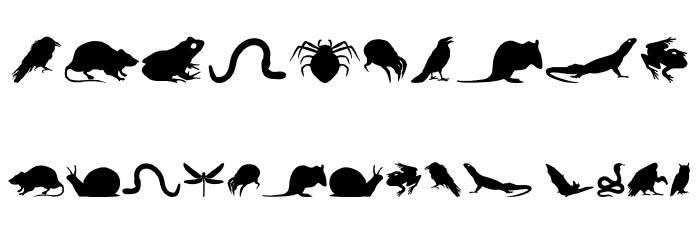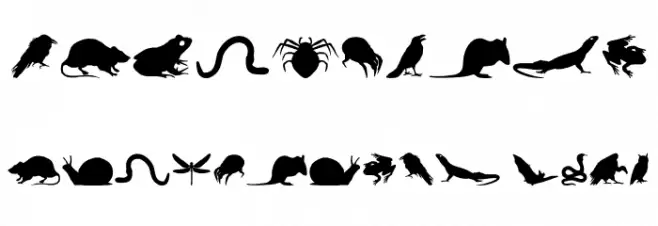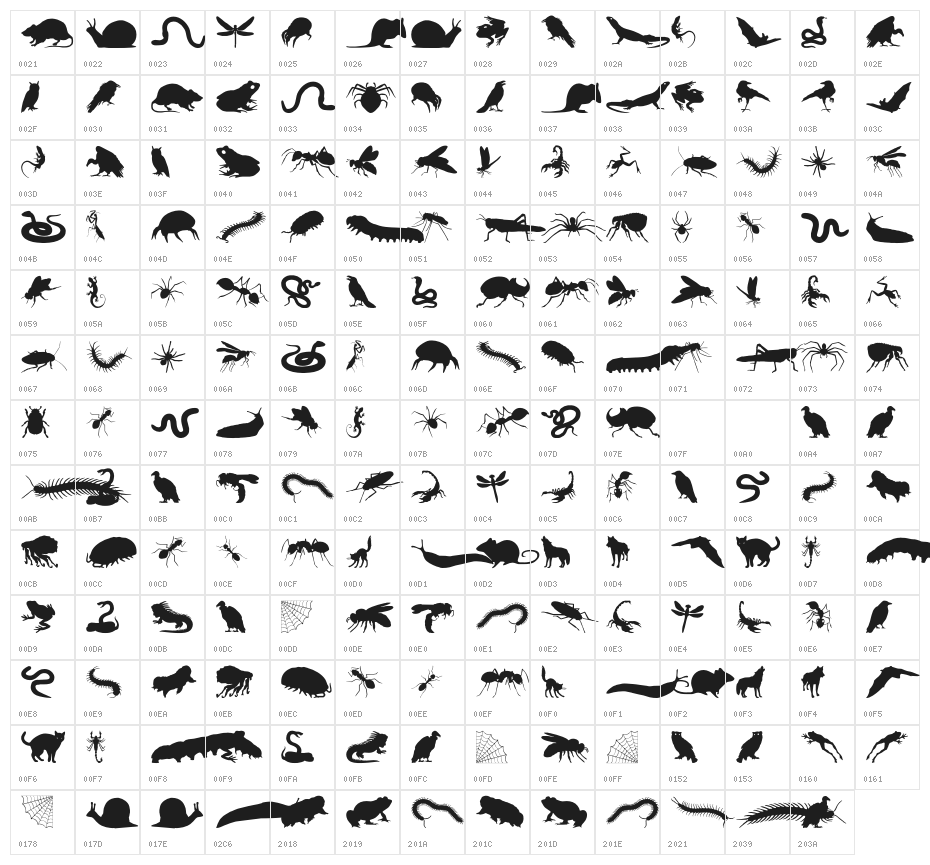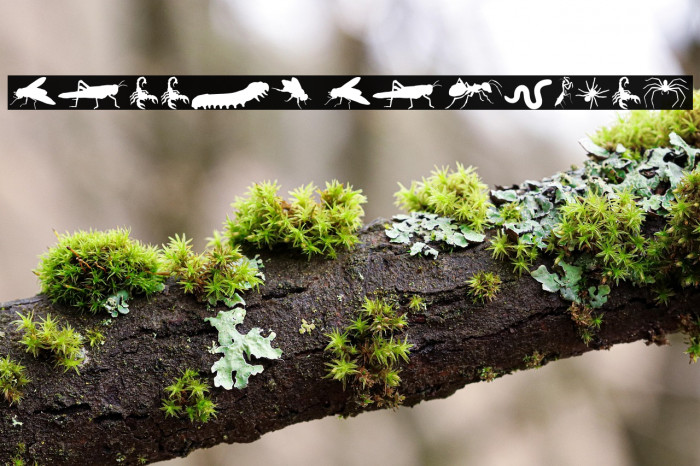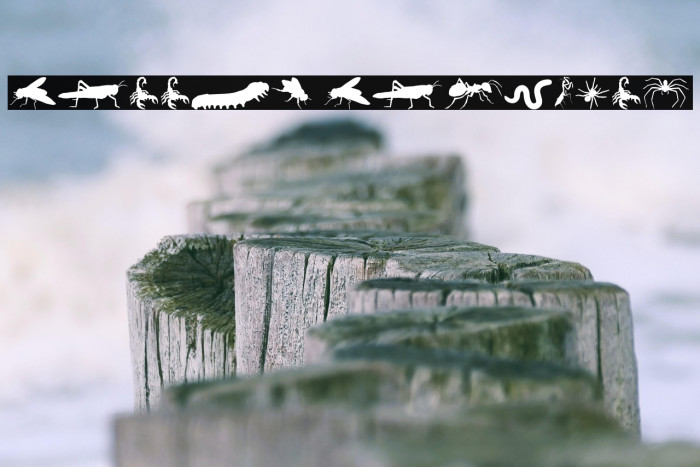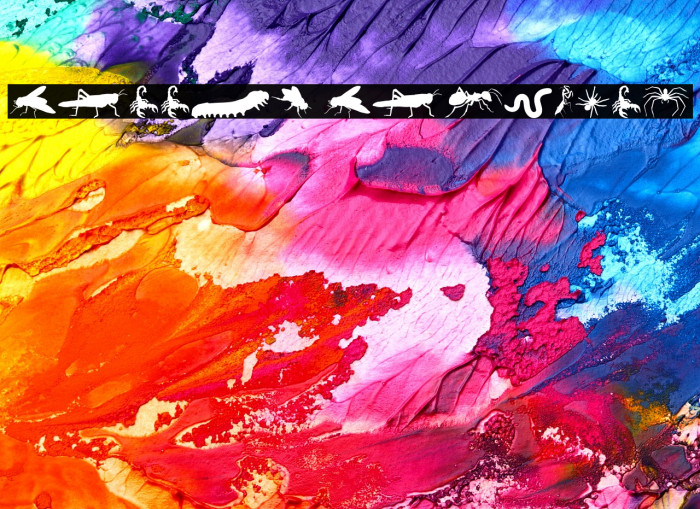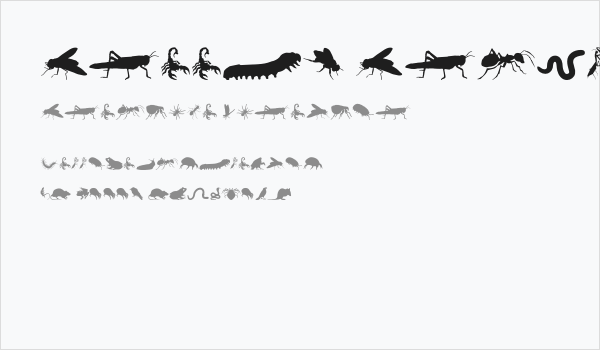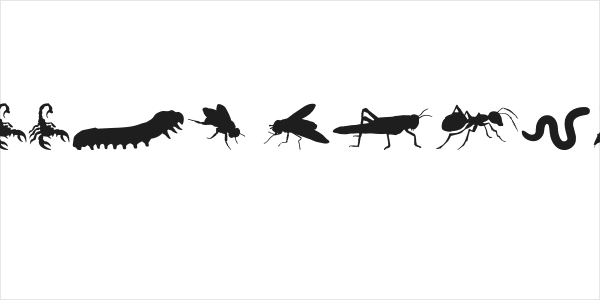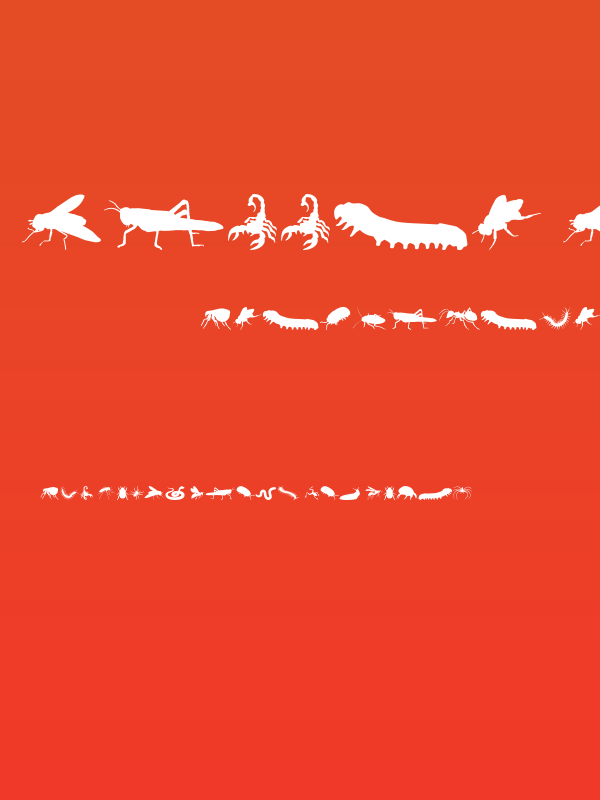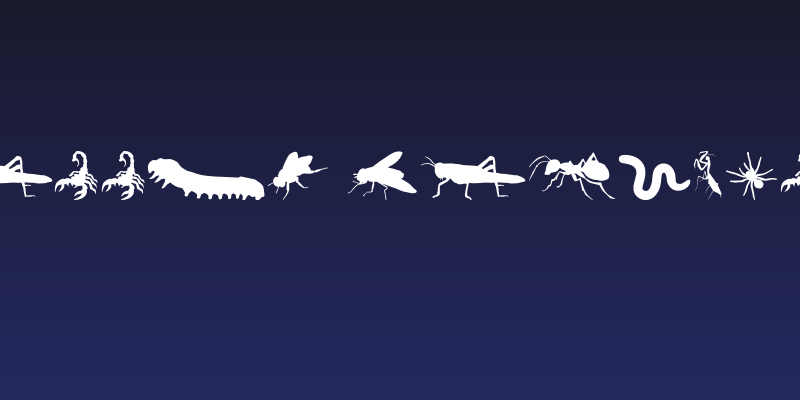
Creepy Crawlies Font
Creepy Crawlies Description
A decorative display font composed of silhouettes of various insects, arachnids, reptiles, amphibians, rodents, and other 'creepy-crawly' creatures, each character represented by a unique animal or insect shape. The glyphs are highly illustrative and lack traditional letterforms, focusing on detailed outlines and filled black shapes.
| Overall Style | Decorative, Thematic, Playful |
| Use Case | Headlines, Logos, Posters, Themed graphics |
| Proposed Projects | Halloween invitations, children's books, educational posters, themed party materials, creative branding for pest control or nature organizations. |